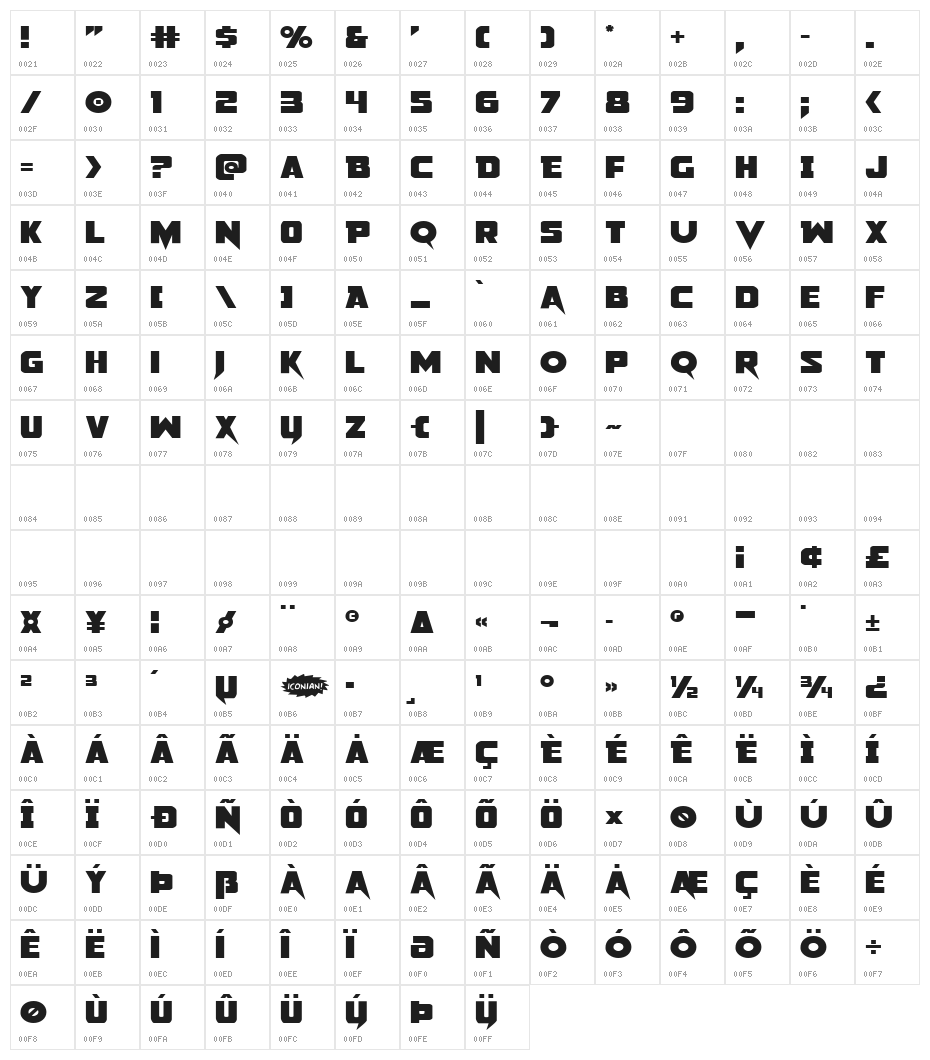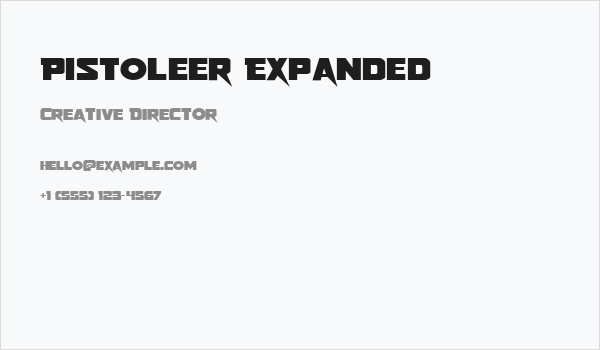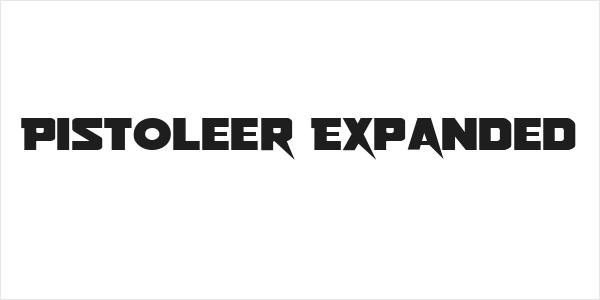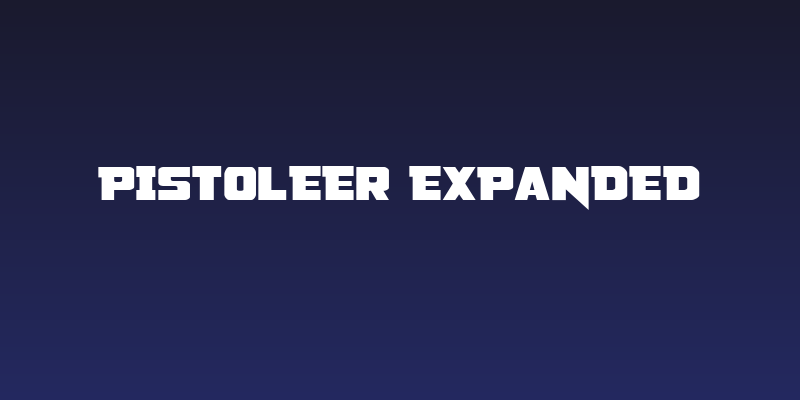
Pistoleer Expanded Font
Pistoleer Expanded Description
This font features a bold and aggressive design with sharp, angular edges and a distinct geometric style. The uppercase and lowercase letters share a consistent width, creating a uniform appearance. The characters are heavily stylized, with unique cuts and angles that give them a futuristic and dynamic look. The numbers and special characters maintain the same boldness and angularity, ensuring a cohesive visual identity across all elements. This font is designed to stand out, making it ideal for attention-grabbing headlines or logos.
Proposed ProjectsIdeal for use in sci-fi themed projects, video game titles, movie posters, or any design requiring a strong, impactful presence.